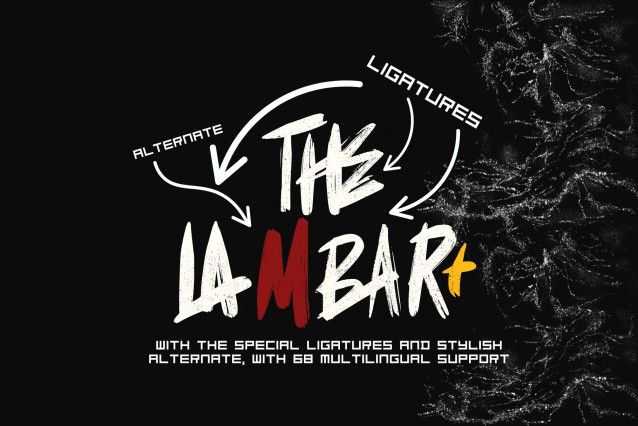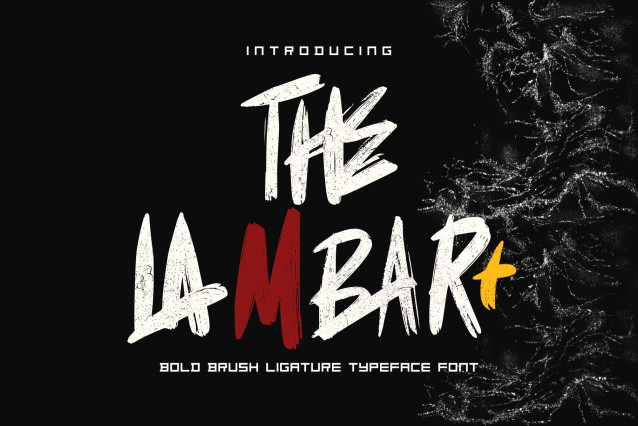
The Lambart Font
The Lambart Font is a bold and expressive brush script typeface with built-in ligatures and dry-brush texture. Designed to make a statement, this font oozes attitude and energy—perfect for powerful branding, merchandise, social media graphics, and music-related designs.